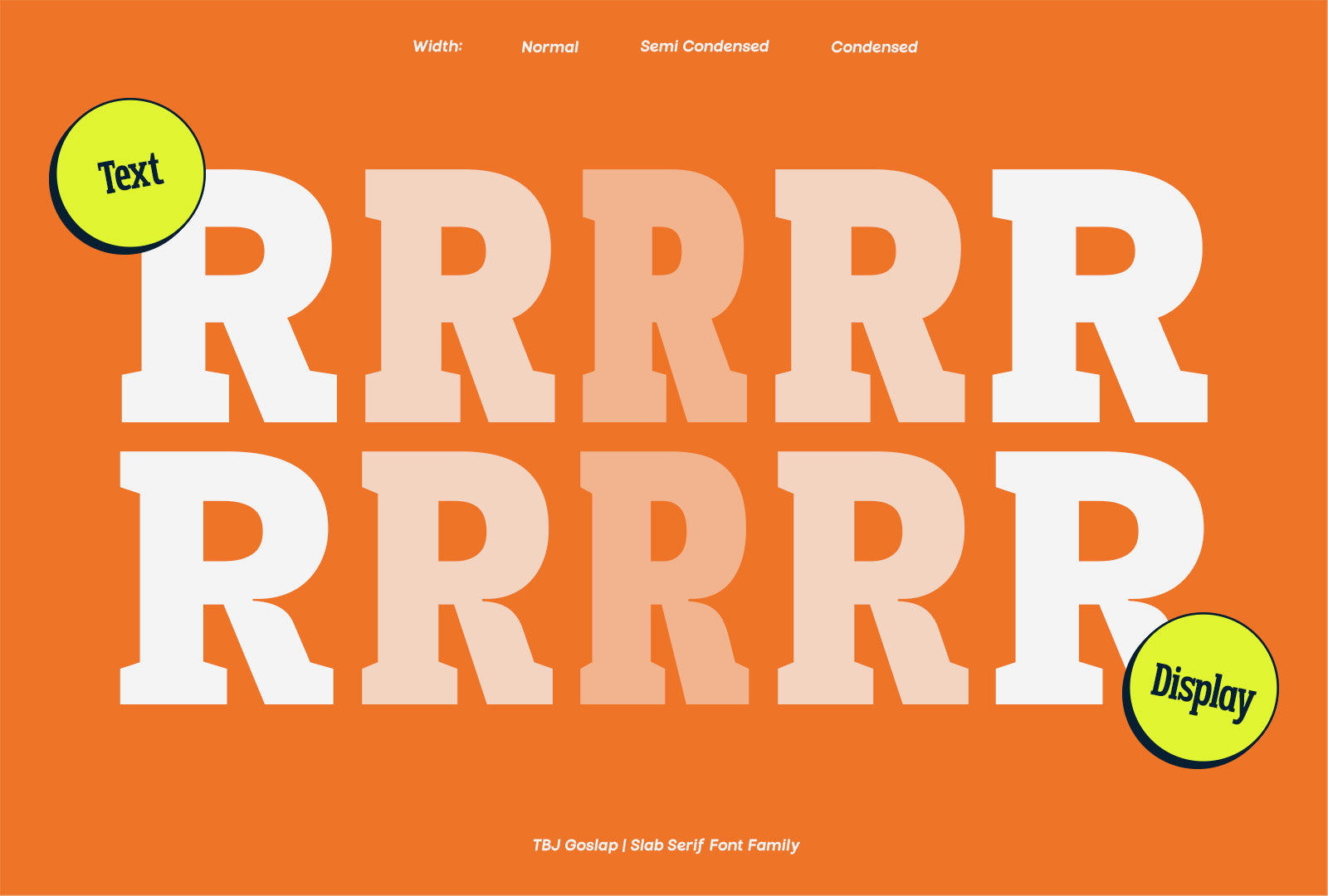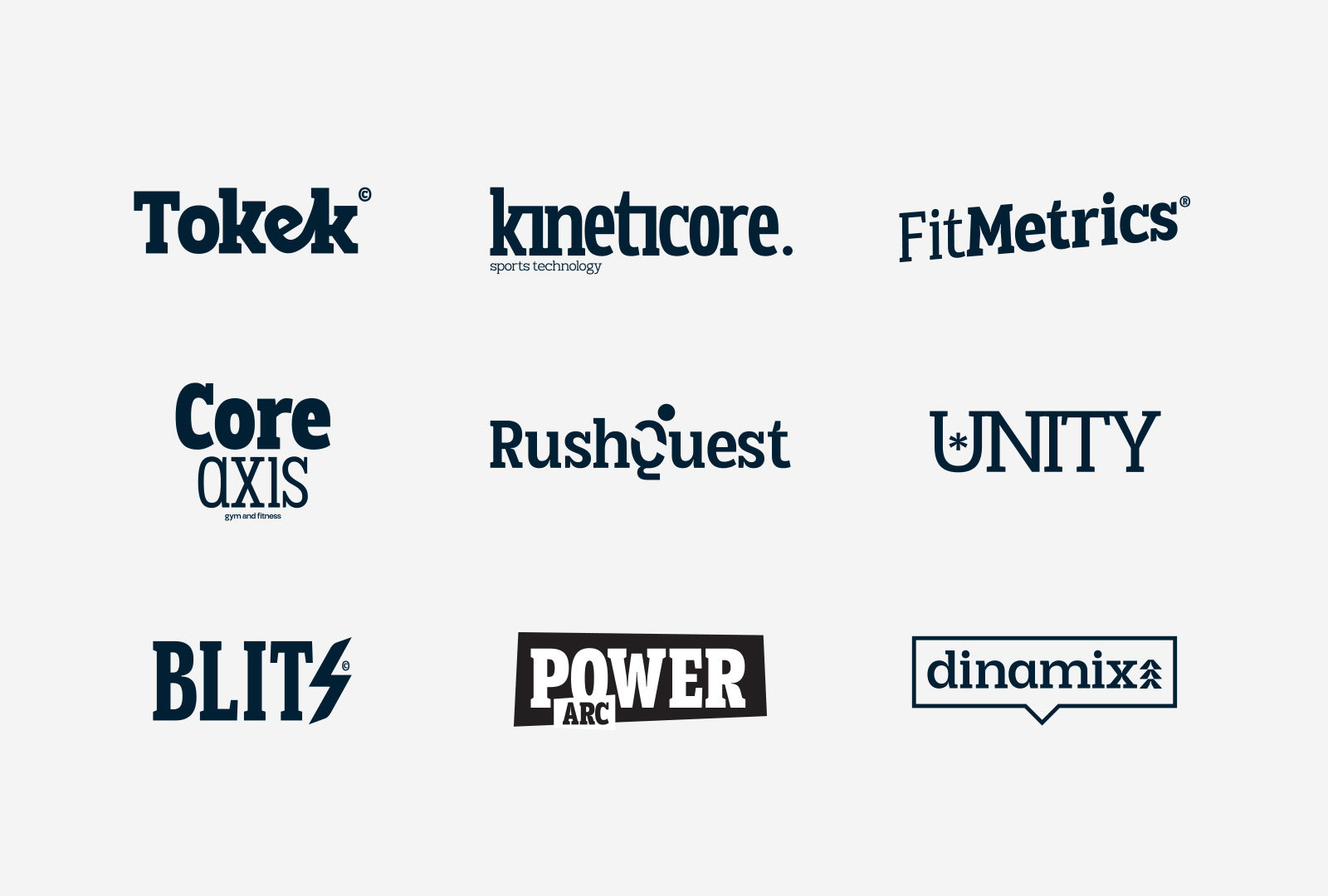
TBJ Goslap Slab Font Family
TBJ Goslap is a contemporary slab serif type family that balances bold structure with refined character. Designed to be strong yet adaptable, it brings a modern voice to a genre often associated with heavy industrial or vintage styles.
Instead of rigid rectangular serifs, TBJ Goslap features distinctive trapezoidal serifs that feel cleaner, sharper, and more sophisticated. This subtle shift gives the typeface a fresh, modern edge while preserving the confident presence expected from a slab serif.
The heavier weights are carefully shaped to avoid a retro “Wild West” look, making them ideal for posters, sports branding, packaging, and striking headlines without drifting into nostalgic territory. Two optical sizes—Text and Display—ensure optimal readability and impact across both body copy and large-scale typography.
TBJ Goslap comes with a wide range of weights, variable font support, alternate characters, ligatures, and broad multilingual coverage, providing flexibility for branding, editorial, digital, and print applications.
Functional, expressive, and contemporary, TBJ Goslap is built for designers who need a slab serif that delivers clarity, strength, and personality in one cohesive family.
The TBJ Goslap Slab Font Family is a contemporary slab serif typeface characterized by its distinctive trapezoidal serifs and a range of weights, including Text and Display optical sizes. It offers features such as variable font support, alternate characters, ligatures, and broad multilingual coverage, making it suitable for various design applications.